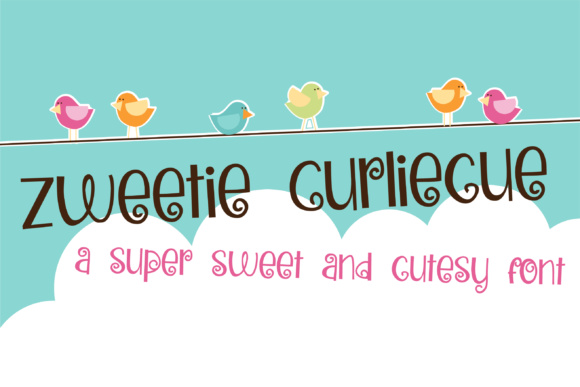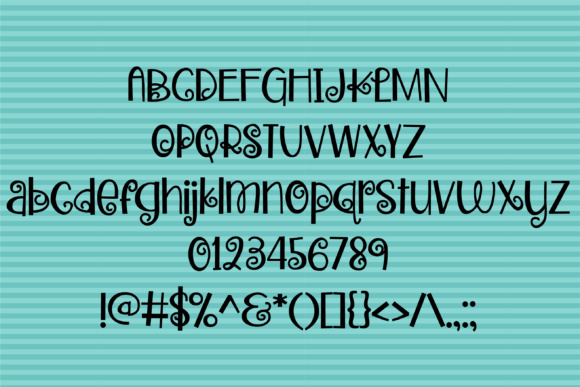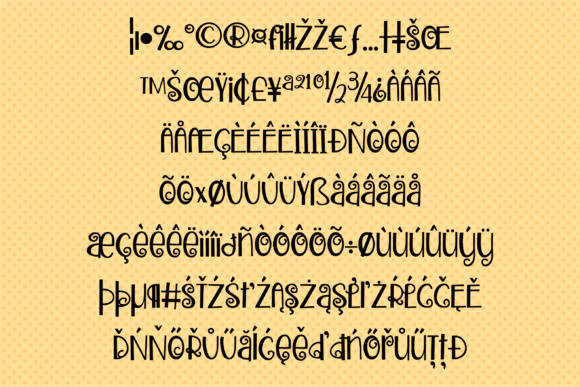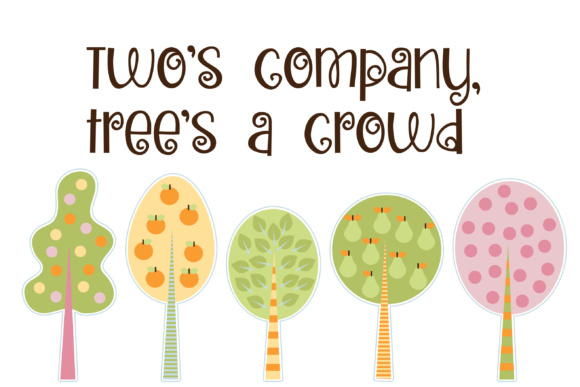
HomeScript FontsZweetie Curliecue Font Script Fonts Zweetie Curliecue Font FacebookXPinterestWhatsApp Zweetie Curliecue Font Poster 2 Zweetie Curliecue Font Poster 3 Zweetie Curliecue Font Poster 4 Zweetie Curliecue Font Poster 5 About Zweetie Curliecue Font This whimsical font has a lowercase with adorable stubby descenders and has curly details throughout. DOWNLOAD NOW People also explored Karisma Font Soulwave Beauty Modern Script Sweet Morning Font Roselove Font Everyone Font Banished Tour Font Helga Fjord Font 366 0 TagsZweetie Curliecue Font Previous articlePamela Script FontNext articleNightliter Font LEAVE A REPLY Cancel reply Comment: Please enter your comment! Name:* Please enter your name here Email:* You have entered an incorrect email address! Please enter your email address here Website: Save my name, email, and website in this browser for the next time I comment. Personal Use Free Nottingsam Personal Use Free Read more about this font Doodle Font Personal Use Free Read more about this font Vanity Personal Use Free Read more about this font Leorio Personal Use Free Read more about this font BLOG Best Fonts for YouTube Videos: Make Your Thumbnails Stand Out Best Fonts for YouTube Videos: Make Your Thumbnails Stand Out Choosing the right font can make a massive difference in how your YouTube videos perform.... Free vs Paid Fonts: Why Investing in Premium Fonts Is Worth It Top 7 Google Fonts Alternatives for Faster and Privacy-Friendly Web Design (2025) Exploring Font Trends